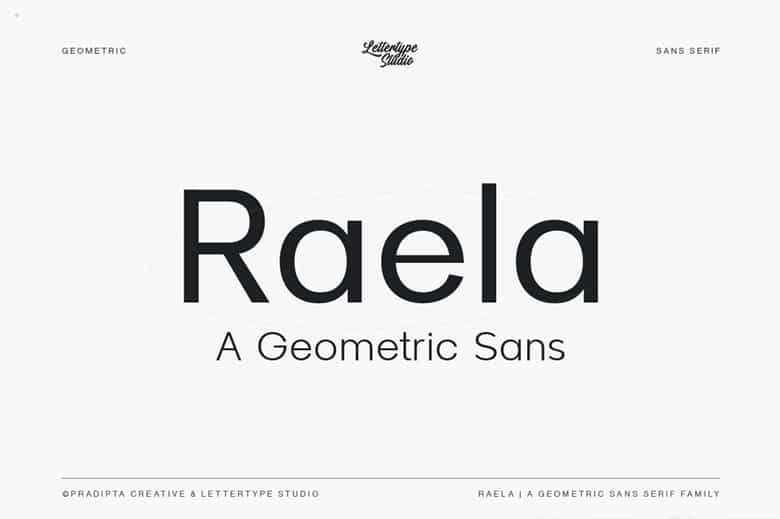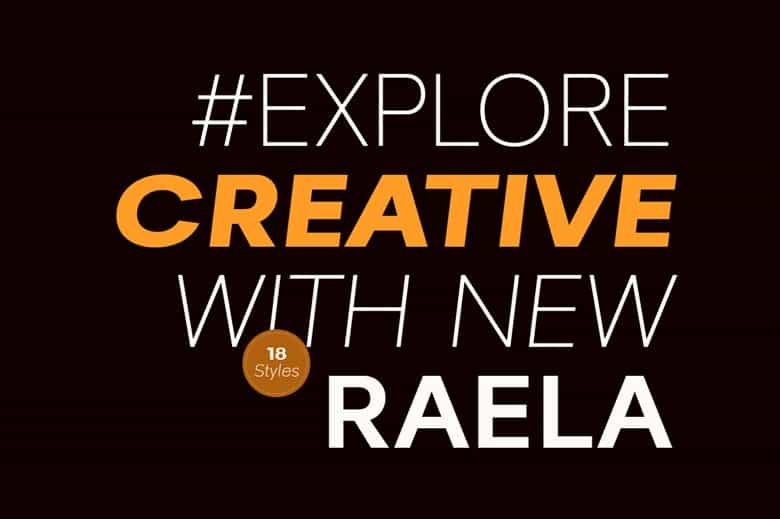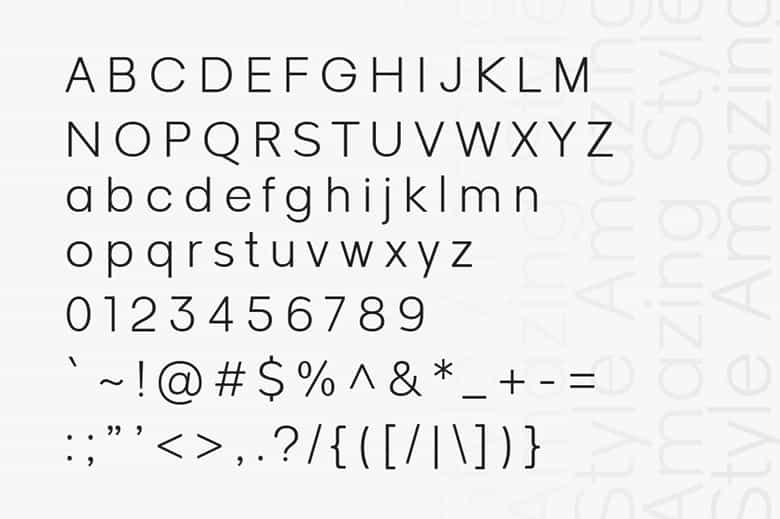
Raela is a highly designed geometric sans serif font that translates clarity and rationality into a bold and powerful character.. Intended for ease of reading and maximum adaptability the letter’s x-height, flat top, closed counter, and straight-cut descender give it a modern look.